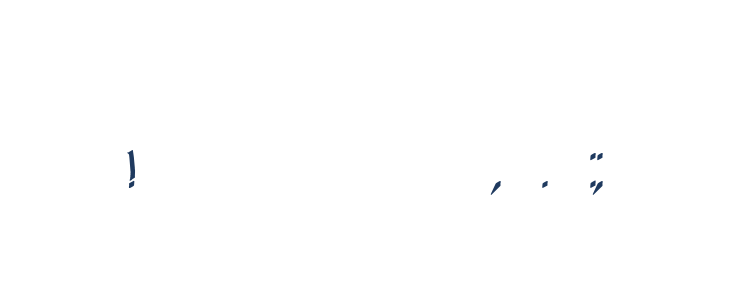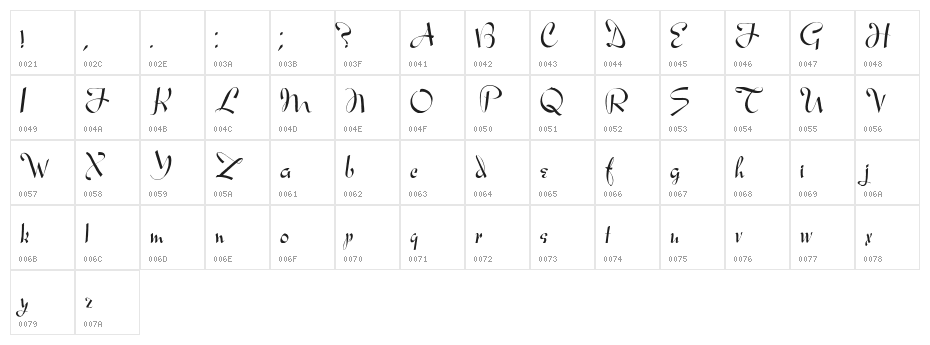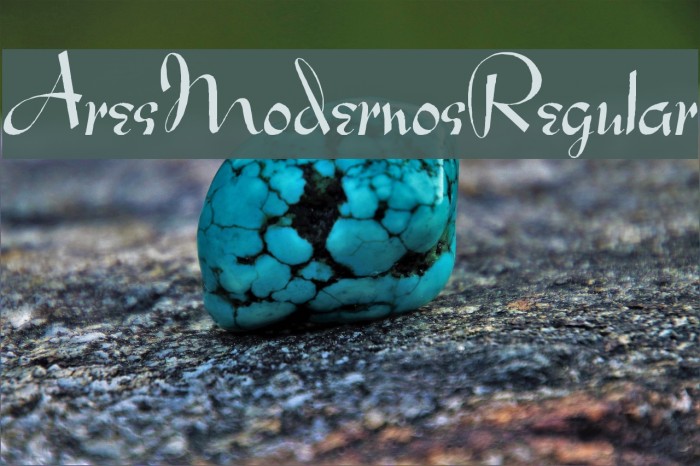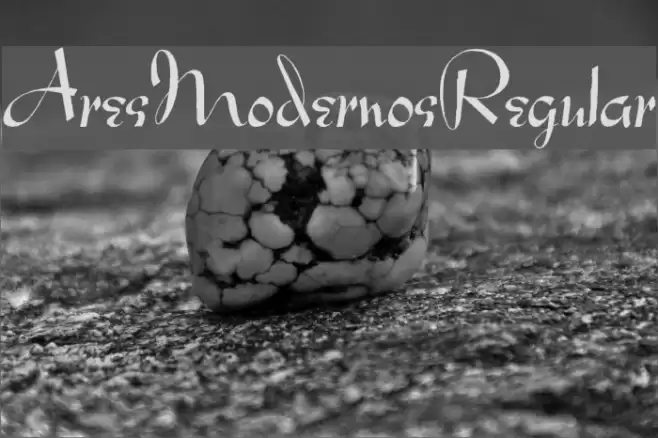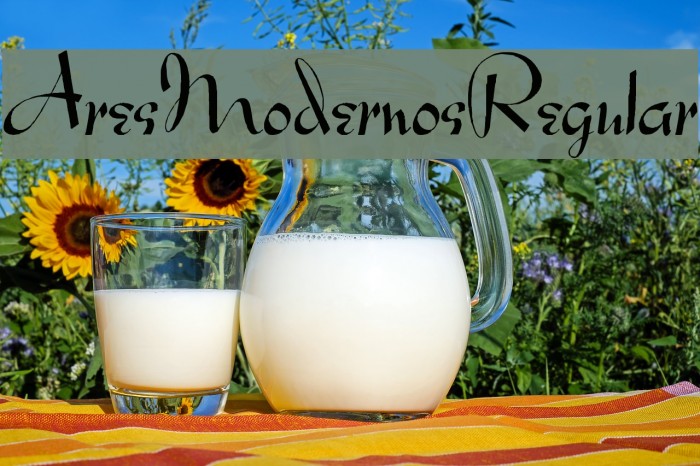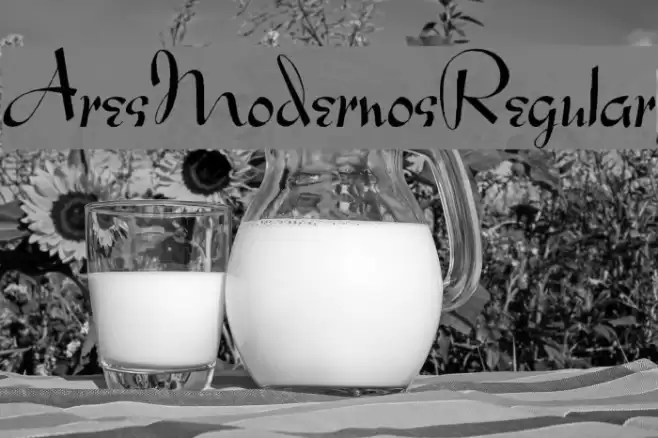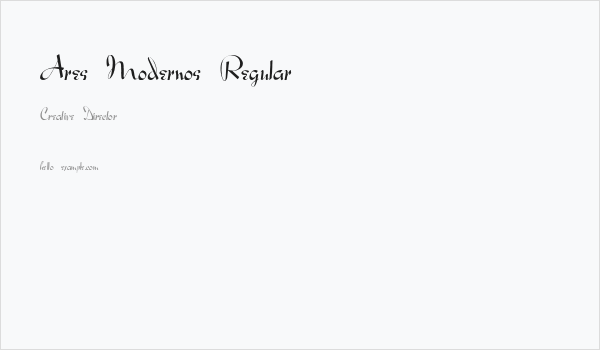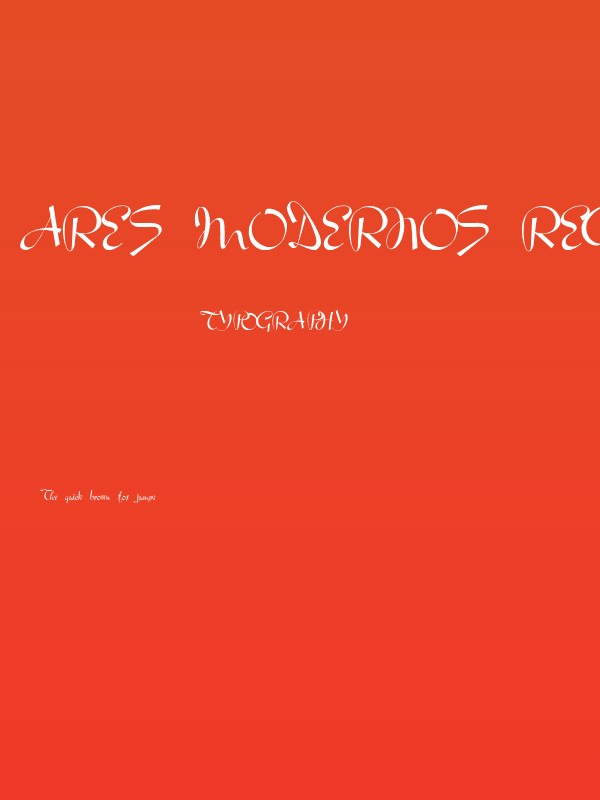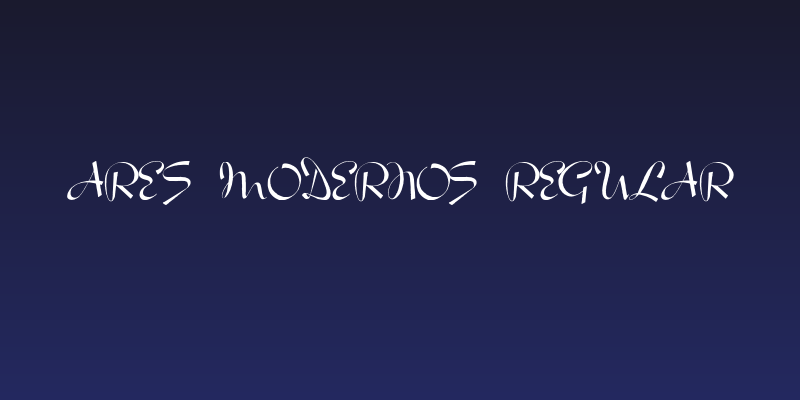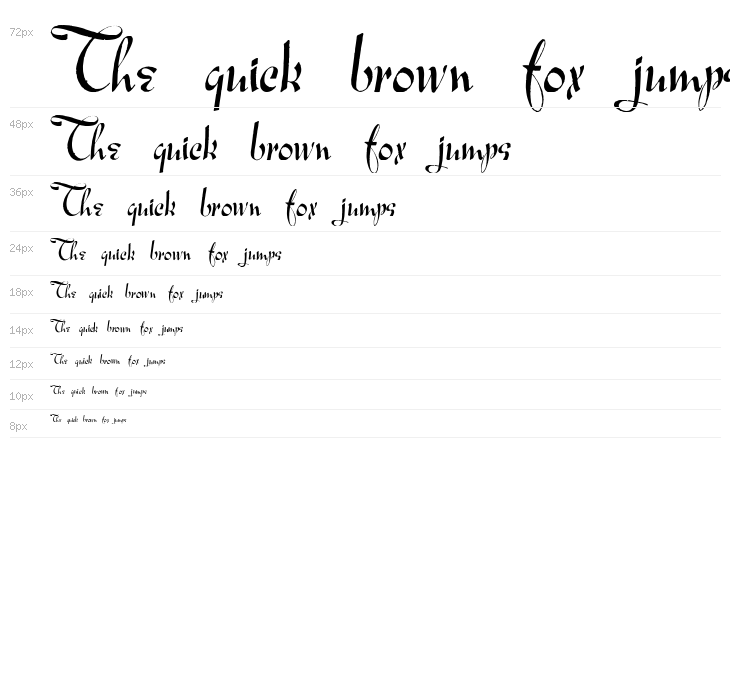
Ares Modernos Regular Font
Ares Modernos Regular Description
This font exhibits a dynamic and elegant script style, characterized by its flowing and interconnected letterforms. The uppercase letters are particularly ornate, with sweeping curves and flourishes that give a sense of movement and sophistication. The lowercase letters maintain a consistent style, with some characters featuring unique loops and swashes that add to the overall decorative appearance. The font's design is reminiscent of calligraphy, making it suitable for projects that require a touch of elegance and formality. The characters are well-spaced, allowing for readability while maintaining an artistic flair.
| Proposed Projects | Ideal for wedding invitations, elegant branding, formal event programs, and decorative headings. |